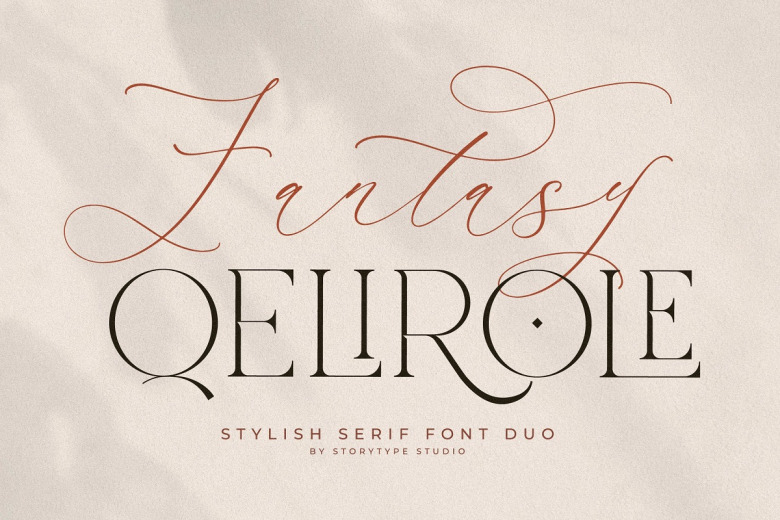
Fantasy Qelirole Font Duo
Fantasy Qelirole is a beautiful font duo which including a natural bleed, a beautiful, strong monoline typeface with smooth lines, and Fantasy Qelirole script. Both made to complete each other. They work together to give your design a sleek and elegant feeling.